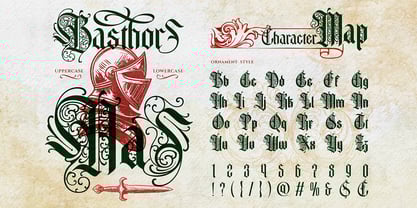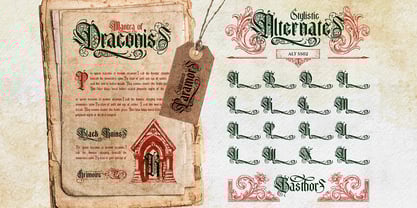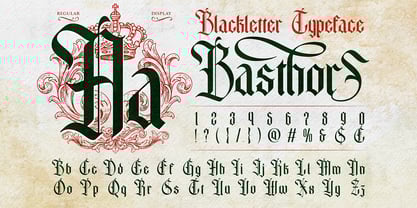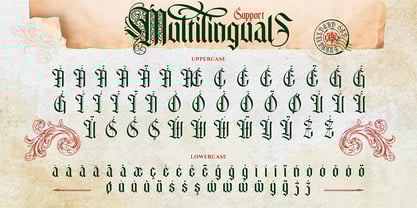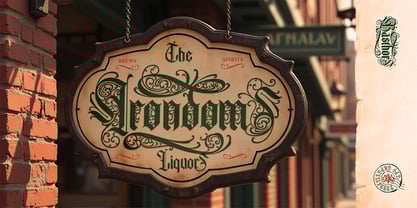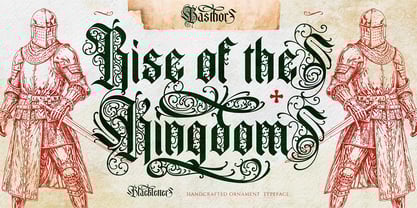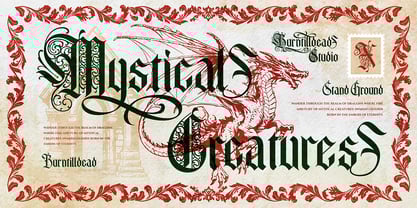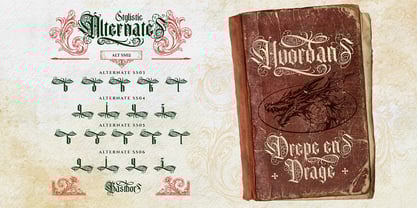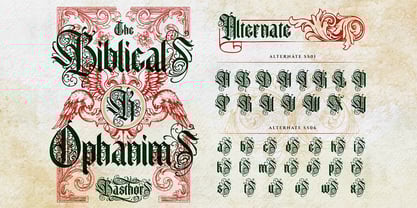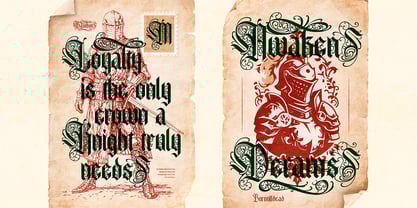
Basthor
Die Schriftfamilie Basthor wurde von Eric Kurniawan entworfen und von Burntilldead veröffentlicht. Basthor enthält 2 Stile und Familienpaketoptionen. Mehr über diese Familie
Basthor is a bold blackletter typeface inspired by medieval calligraphy and classic European lettering. Designed with elegant curves and rich ornamental details, this font brings a strong historical character while still feeling stylish and decorative. The font features dramatic swashes, intricate letterforms, and beautifully crafted alternates that make every word look powerful and unique. It also comes with an ornament style, giving you extra decorative elements that add a vintage medieval touch to your designs. Basthor is perfect for projects that need a royal, gothic, or medieval atmosphere. Whether you're creating branding, posters, packaging, or fantasy-themed artwork, this font helps your design stand out with a timeless and legendary feel. With its combination of classic blackletter structure and artistic ornament details, Basthor is a great choice for designers who want to create something bold, elegant, and full of character. Perfect for medieval or fantasy theme design, vintage and gothic branding, poster and editorial titles, packaging and label design, book cover and merchandise, logos and headline typography.